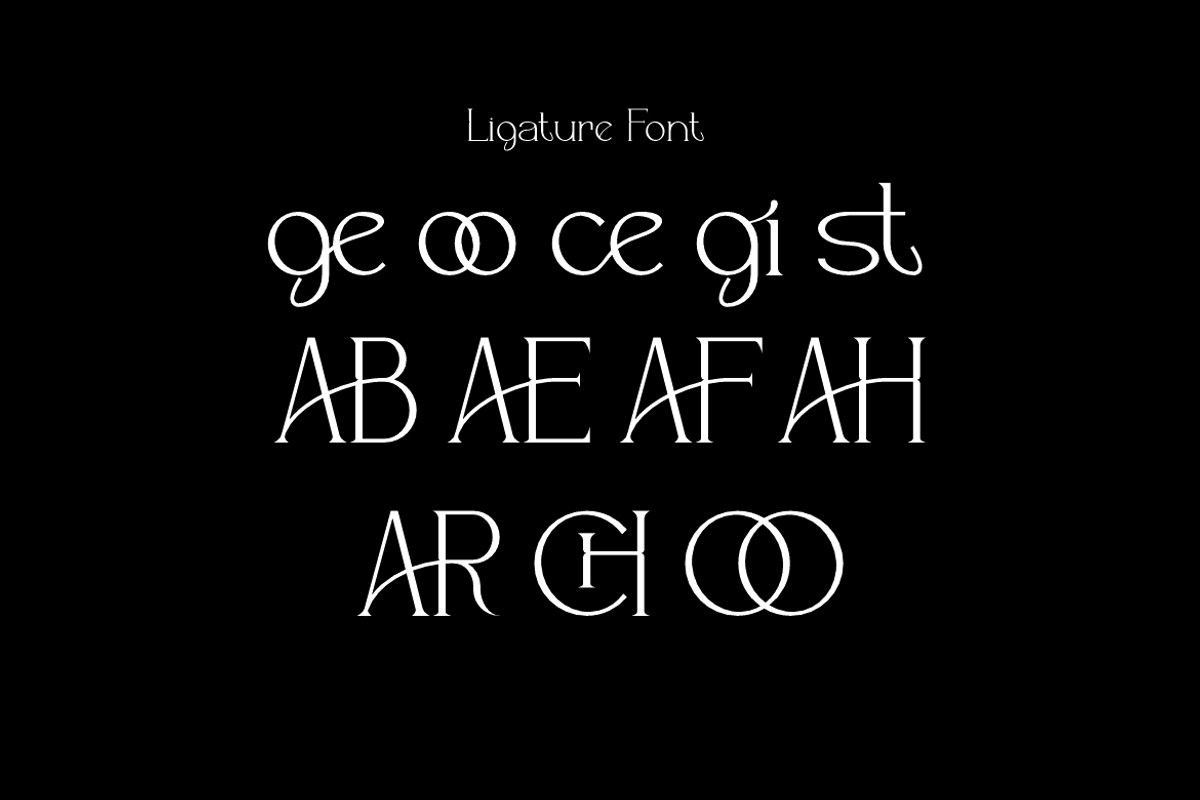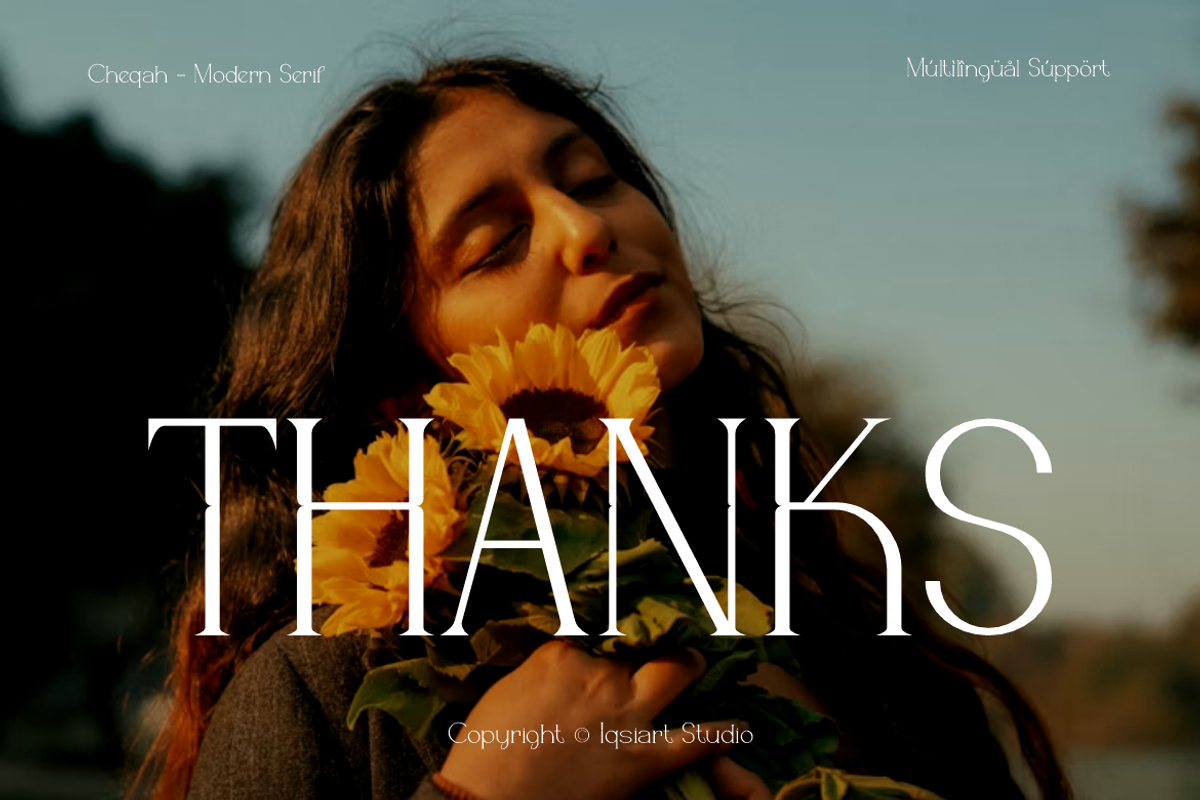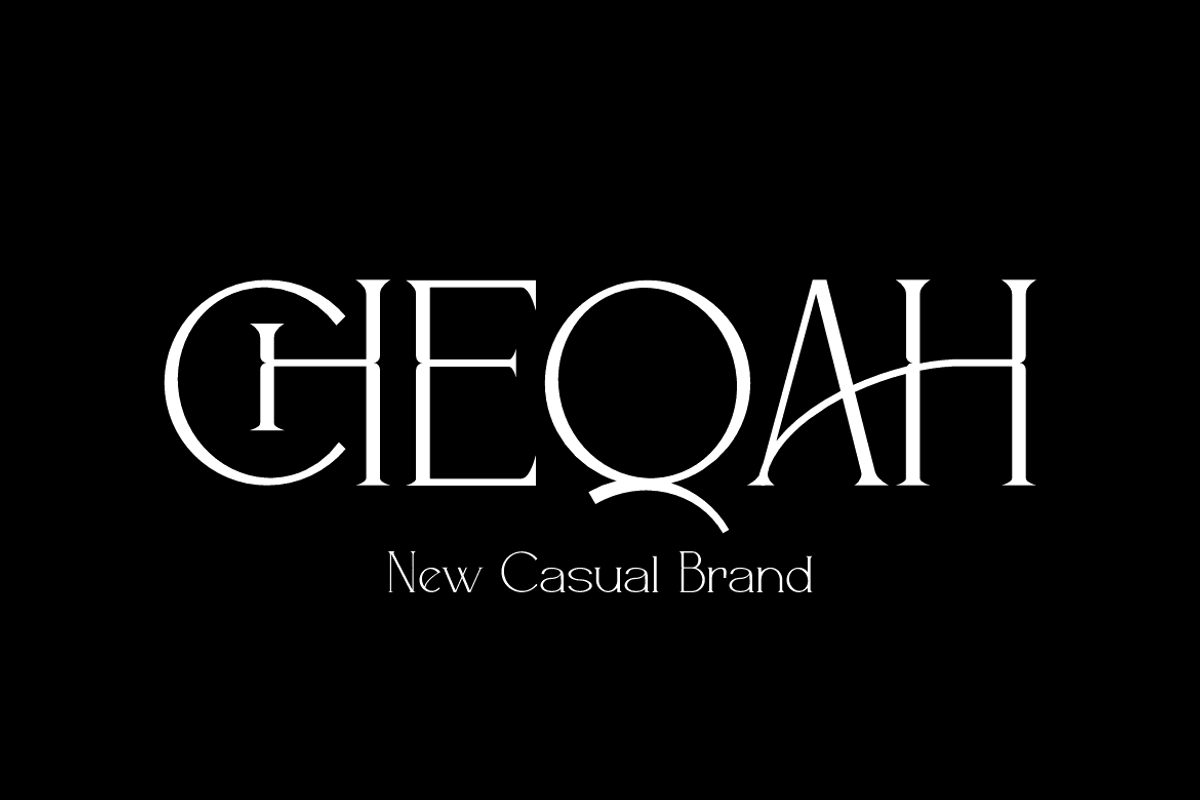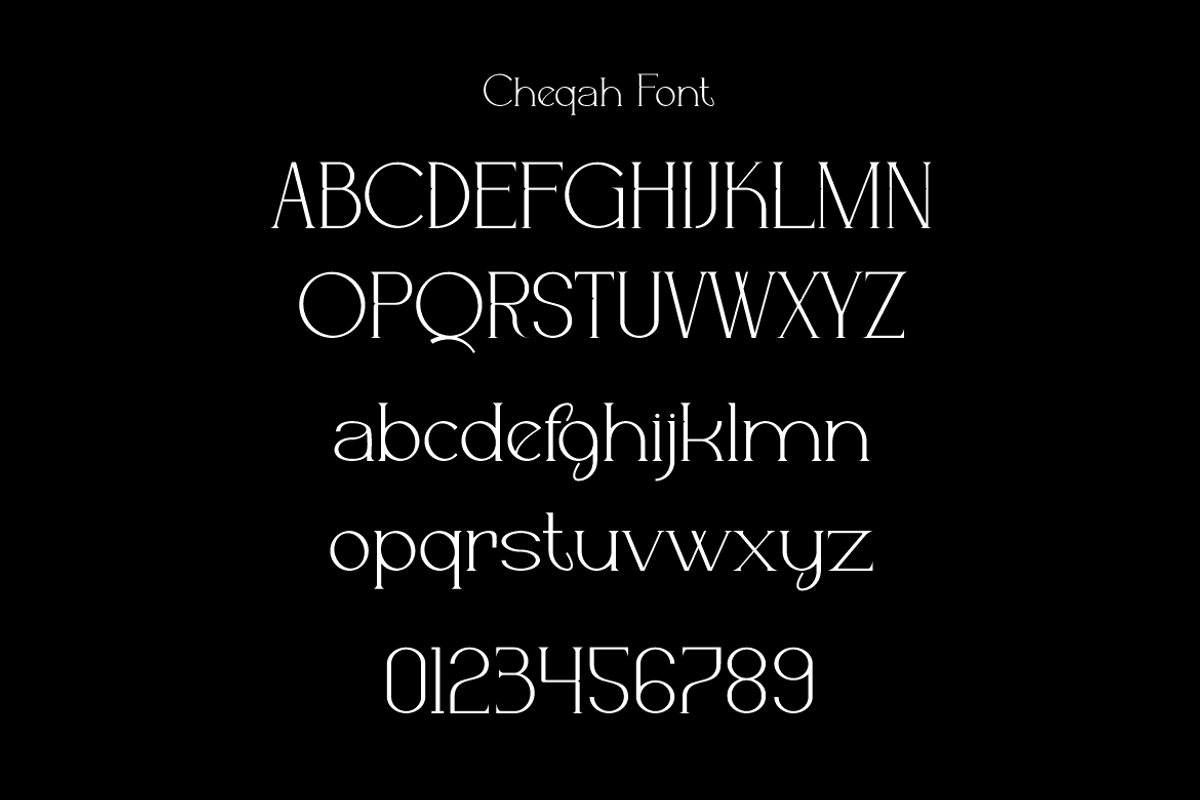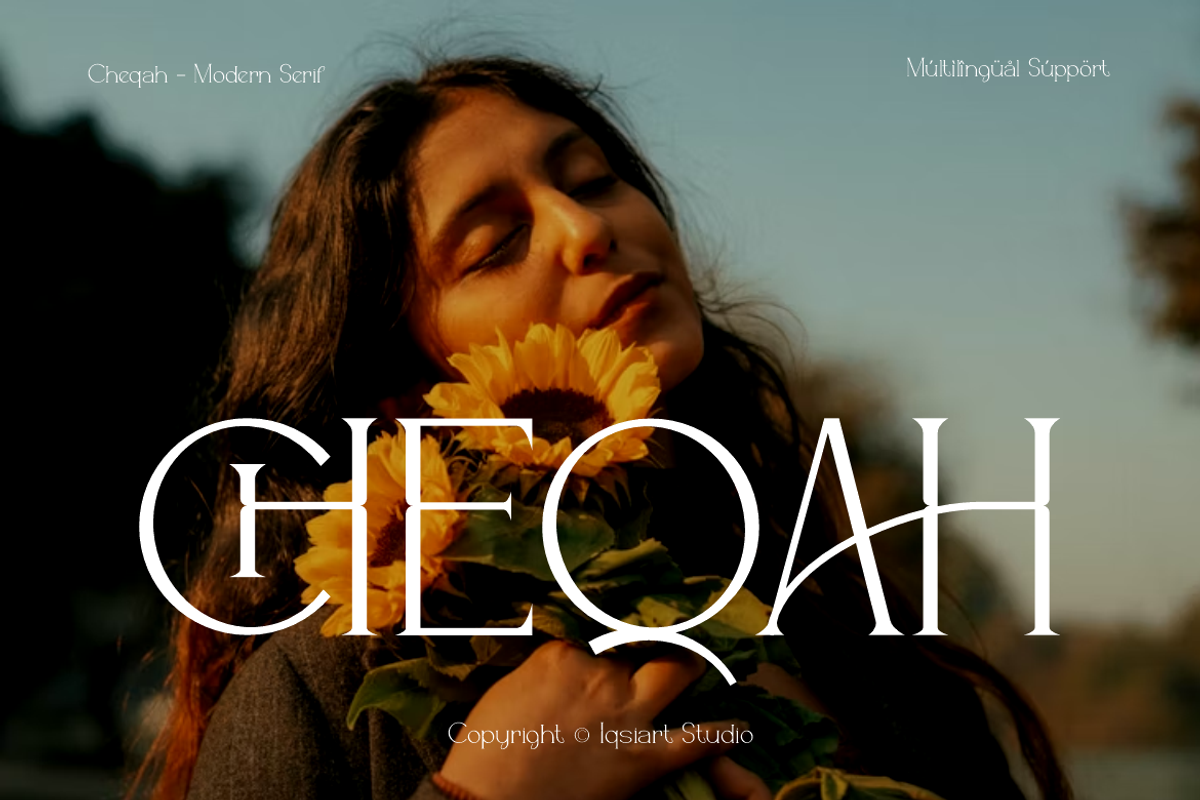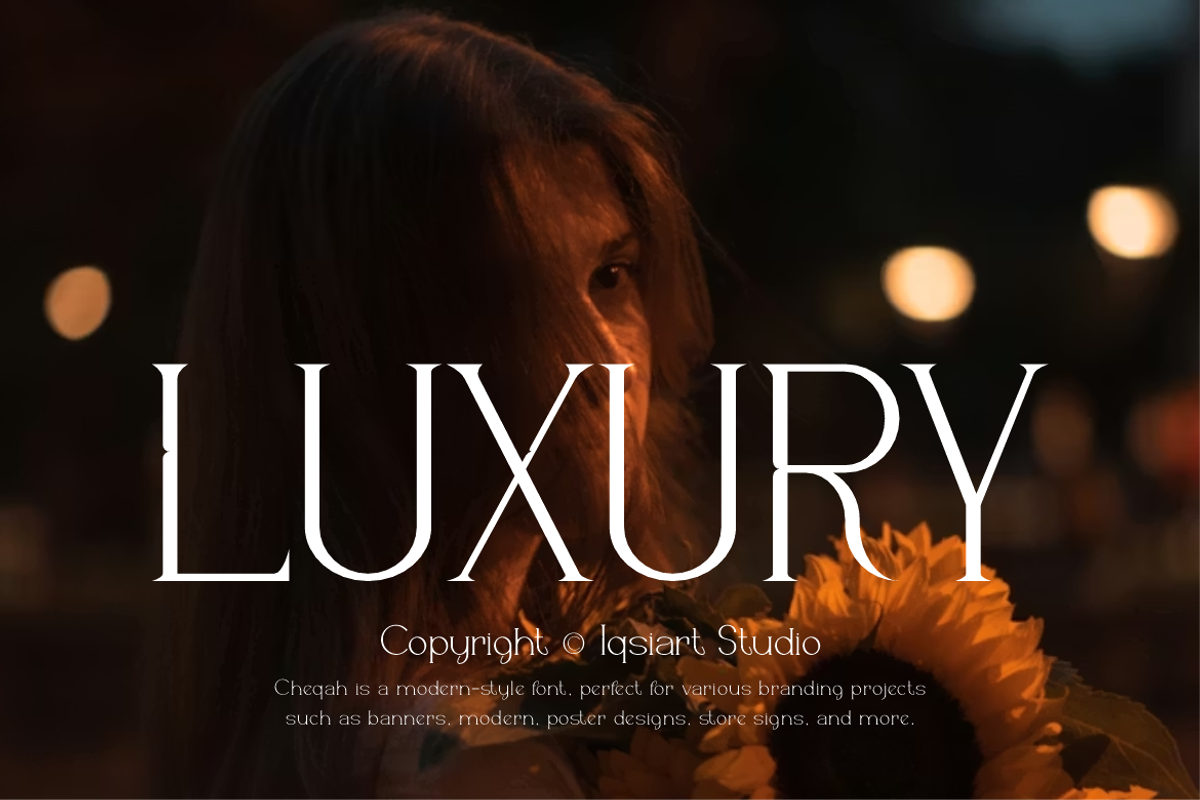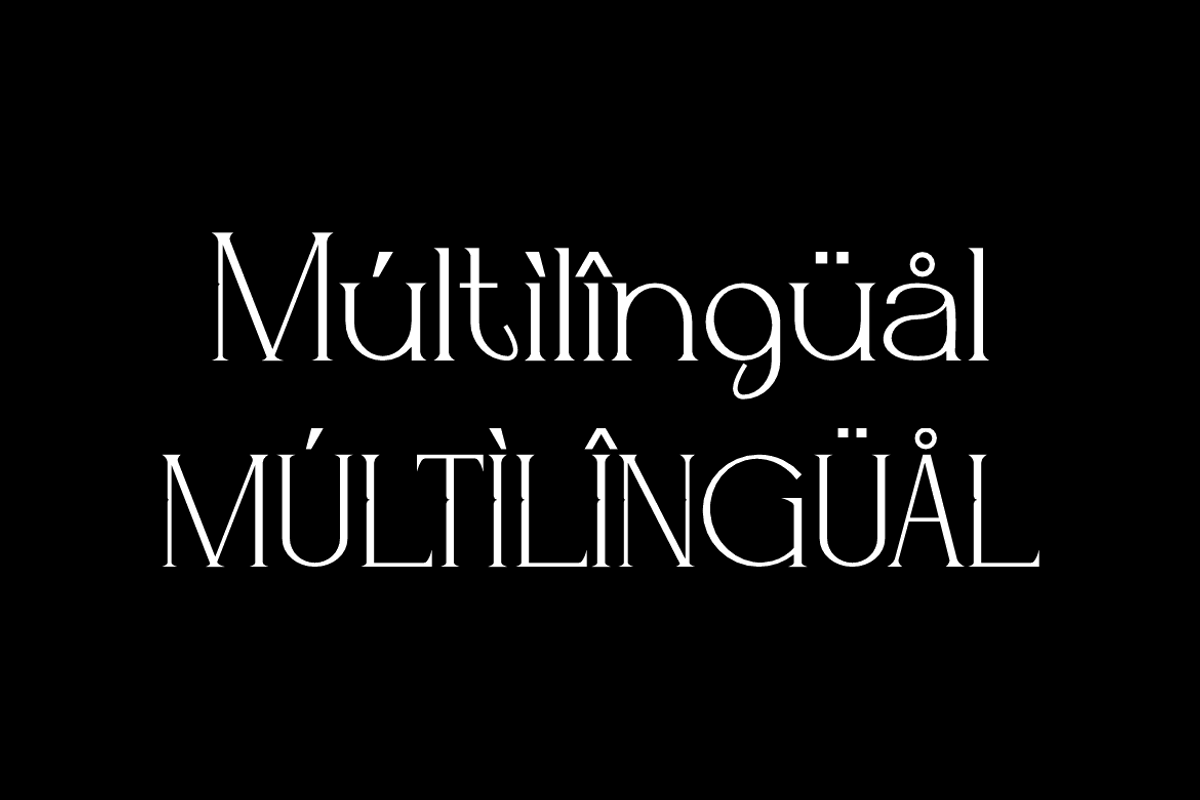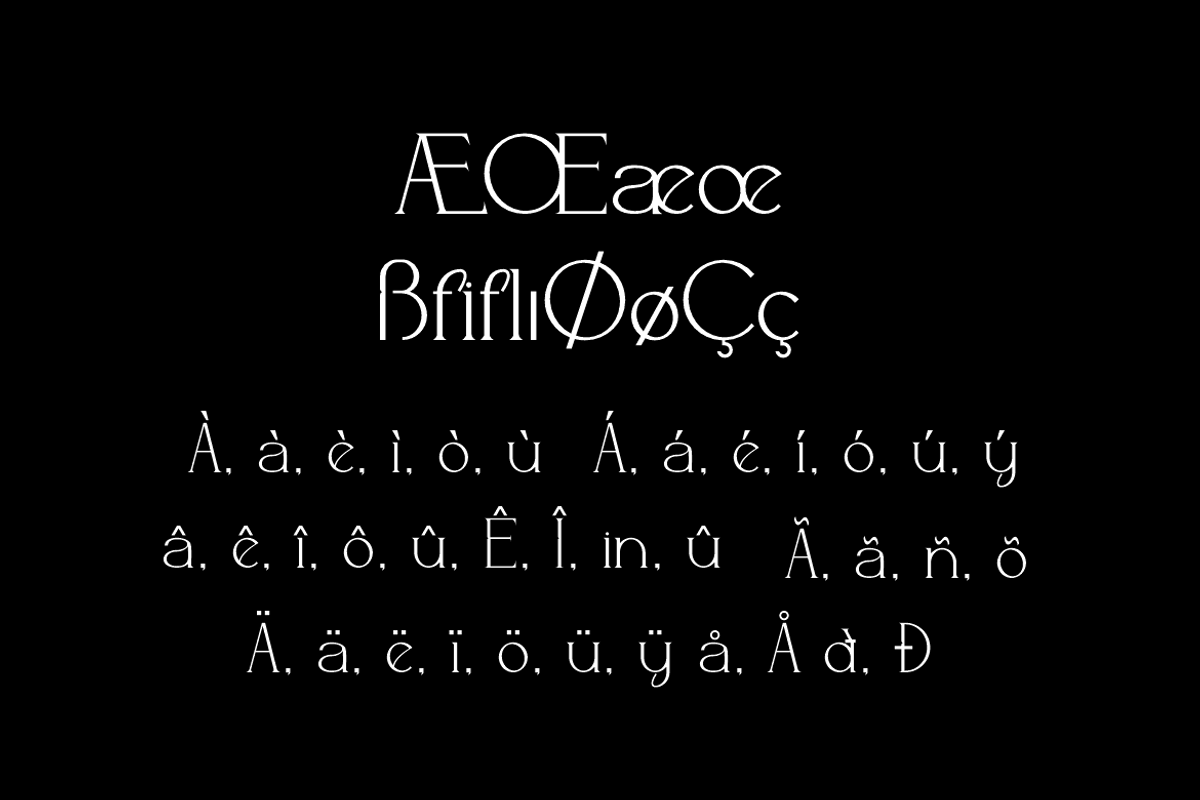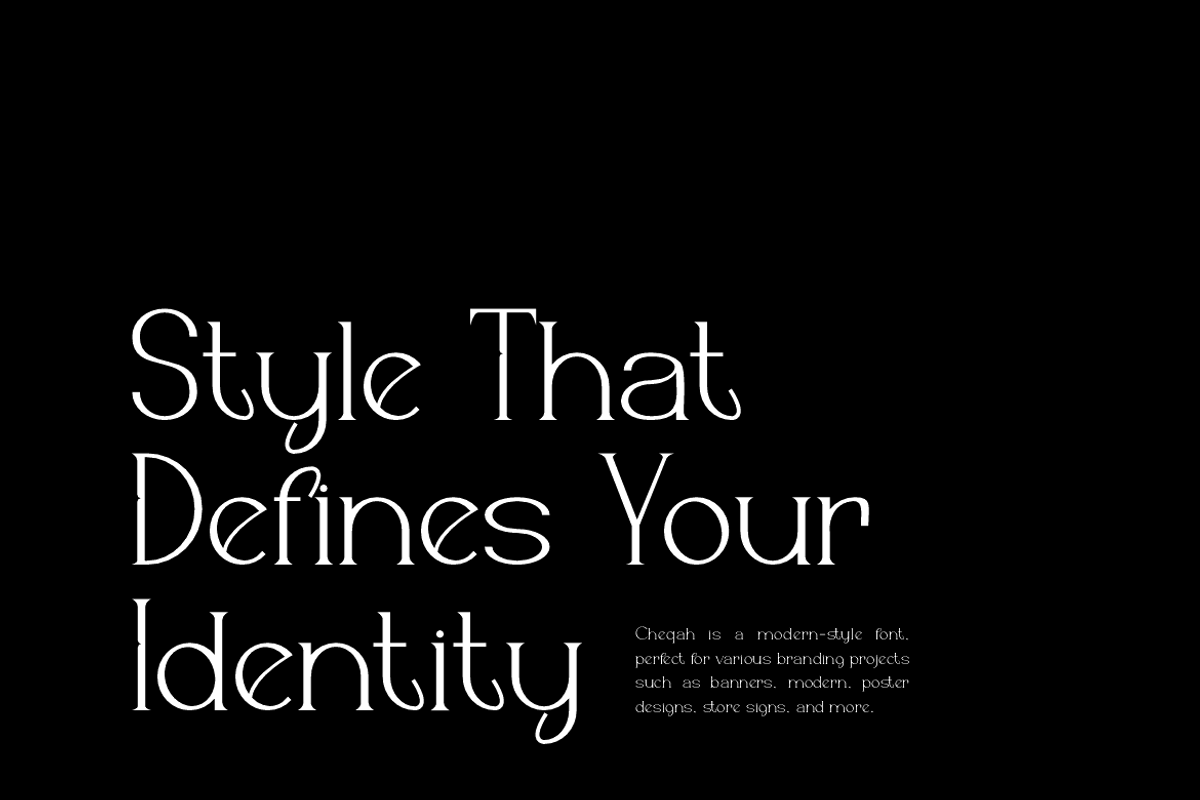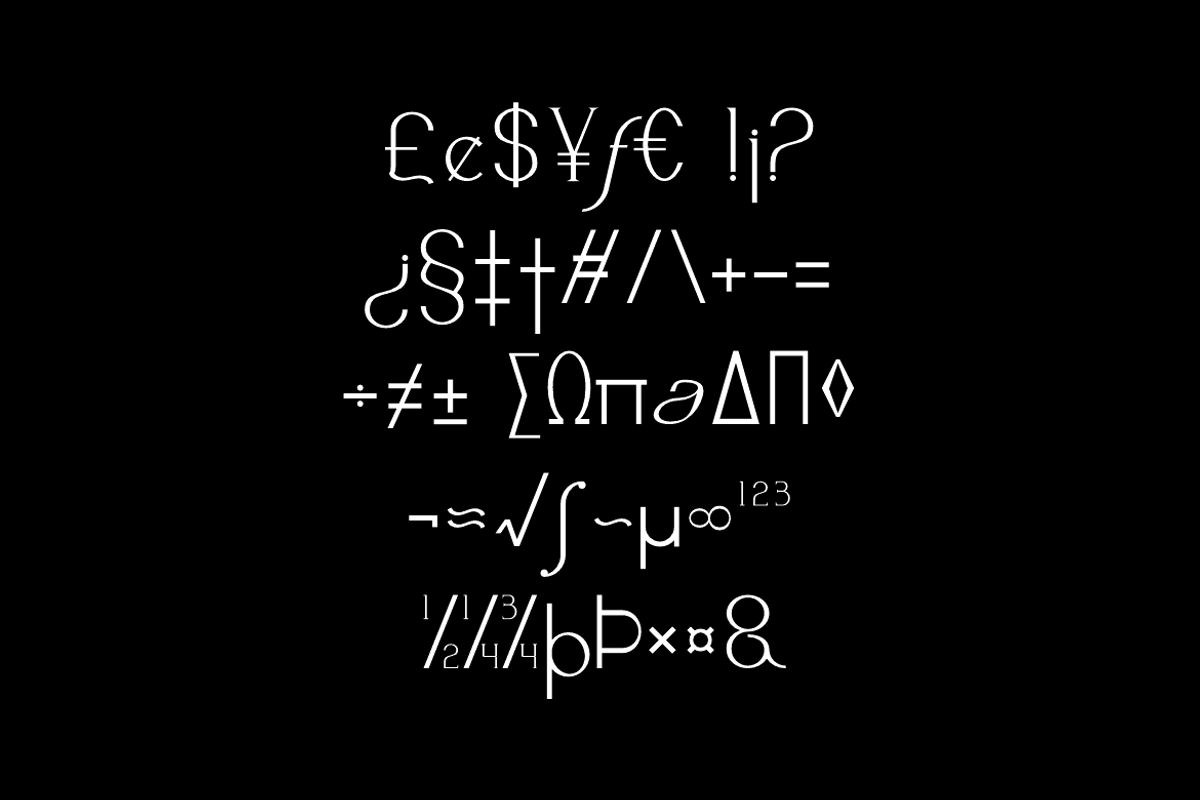
Cheqah - Modern Brand Font
Cheqah Font is a modern and authentic display typeface that suits a variety of design needs. We offer a wide range of themes and font styles — visit our profile to explore more and find the perfect style for your project.